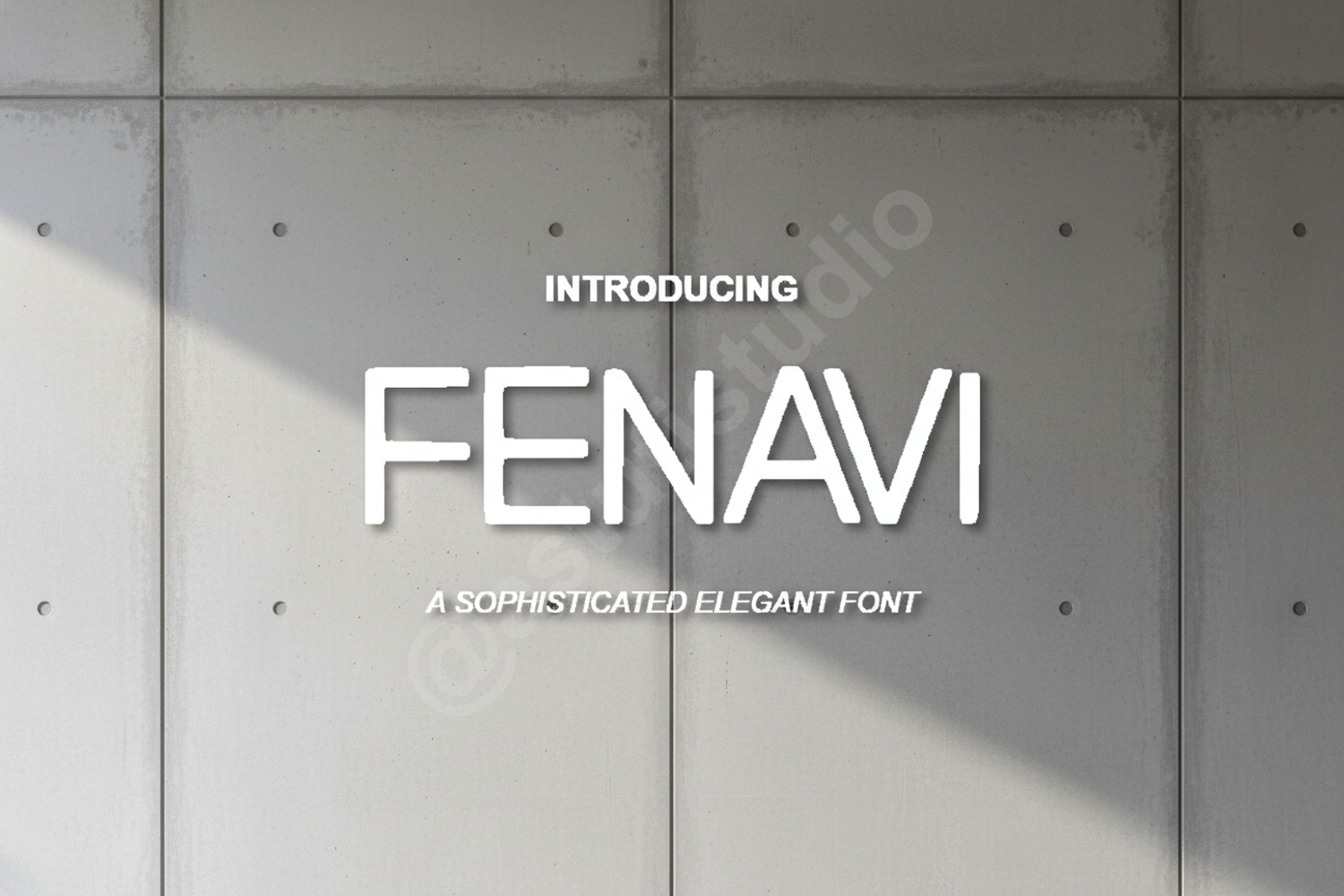
Fenavi - Elegant Modern Serif Font
Fenavi
Fenavi is a meticulously crafted serif font that strikes a perfect balance between timeless elegance and contemporary sophistication. Designed with precision, this typeface features clean lines, balanced proportions, and unique character details that elevate any creative project. Whether you are aiming for a high-end luxury feel or a modern minimalist aesthetic, Fenavi provides the versatility and premium quality required for professional design work.
- Full set of uppercase and lowercase letters
- Luxury Branding and Visual Identity: Create memorable logos and brand marks that exude class.
- Wedding and Event Stationery: Perfect for sophisticated invitations, menus, and place cards.
- Editorial Design: Ideal for magazine headers, book covers, and high-impact layouts.
- Social Media Graphics: Enhance your digital presence with stylish quotes and promotional posts.
- Packaging Design: Add a touch of refinement to premium product packaging and labels.